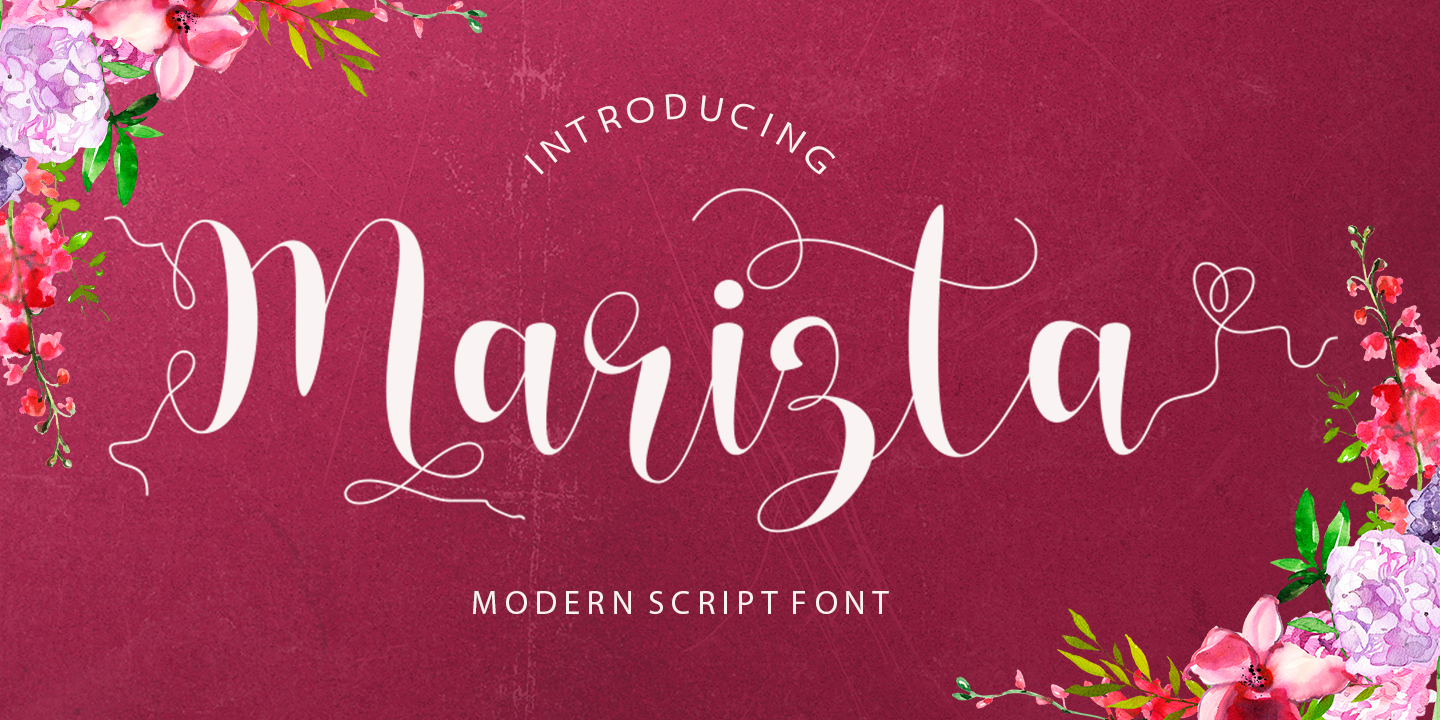
The Marizta Script Font excels in various design applications including elegant calligraphy wedding invitations, sophisticated script branding materials, graceful handwritten signature designs, romantic love letter stationery, refined boutique packaging, flowing poetry publication layouts, artistic script logo designs, delicate feminine brand identities, enchanting greeting card typography, and distinguished script projects that demand handwritten elegance and calligraphic sophistication.
What makes the Marizta Script Font exciting is its exquisite embodiment of elegant handwriting and flowing calligraphic artistry through letterforms that capture the essence of personal penmanship and the intimate beauty of hand-lettered script. This typeface demonstrates exceptional grace through carefully crafted characters that suggest the natural rhythm of skilled handwriting, the personal touch of authentic calligraphy, and the flowing connectivity that makes script lettering so beautifully expressive and emotionally resonant. The font's script personality makes it perfect for luxury brands and personal stationery companies seeking to communicate handcrafted elegance, personal touch, and the kind of flowing beauty that creates memorable handwritten experiences through typography that literally dances with calligraphic grace.
The Marizta Script Font family typically includes flowing weight variations that enhance the handwritten aesthetic, featuring elegant connecting strokes and extended character sets optimized for script applications and calligraphic communications. These family options often include script alternates with enhanced flourishes, calligraphic ligatures, and handwritten ornaments that provide designers with comprehensive tools for creating authentically flowing typography that celebrates the art of beautiful handwriting while maintaining contemporary design appeal and script credibility.
Calligraphy professionals and luxury stationery brands consistently select Marizta Script Font Free Download for projects requiring typography that communicates handwritten sophistication and script excellence. This typeface delivers exceptional performance in wedding marketing, luxury branding, and personal communications where establishing elegance and creating beautiful script atmosphere is essential for emotional connection. The font's calligraphic character makes it particularly effective for invitation and greeting card applications. Download Marizta Script Font Free Download today to access this flowing typeface that transforms script communications with its handwritten elegance and calligraphic sophistication, creating compelling personal experiences that honor the timeless artistry of beautiful handwriting while celebrating the flowing grace that makes script lettering eternally captivating and genuinely sophisticated.